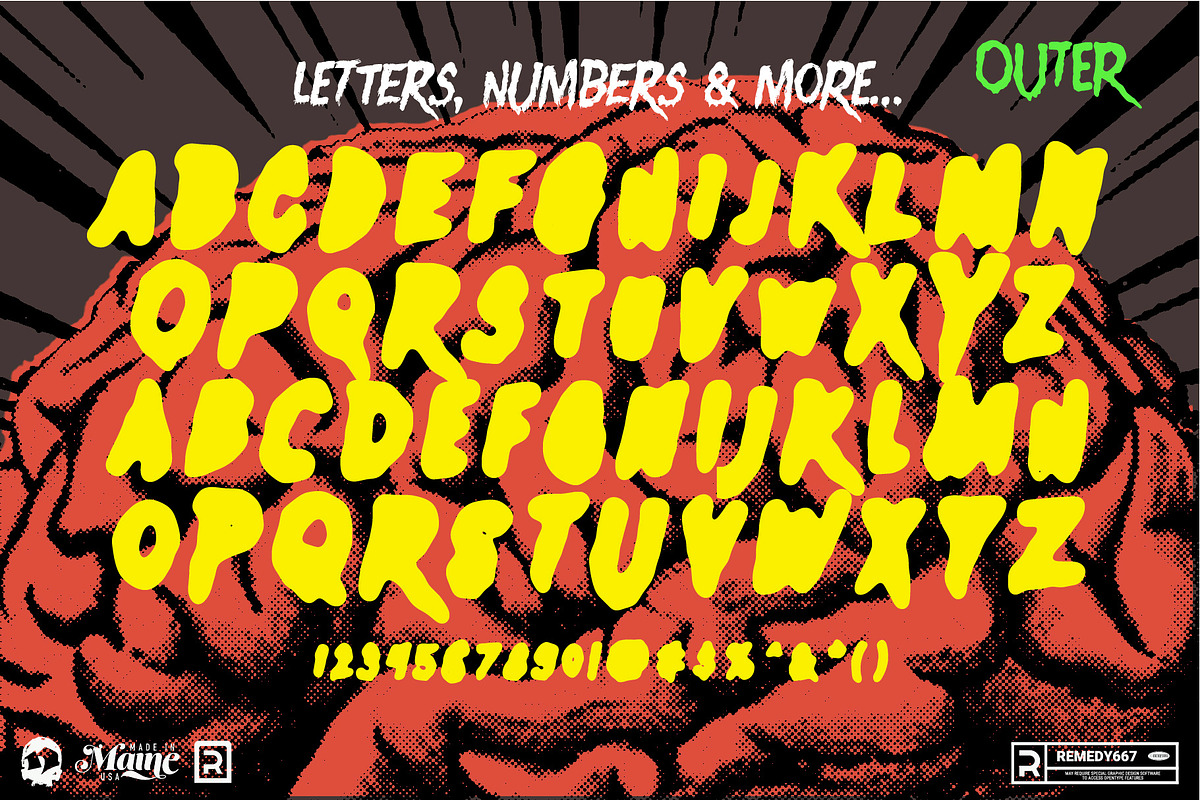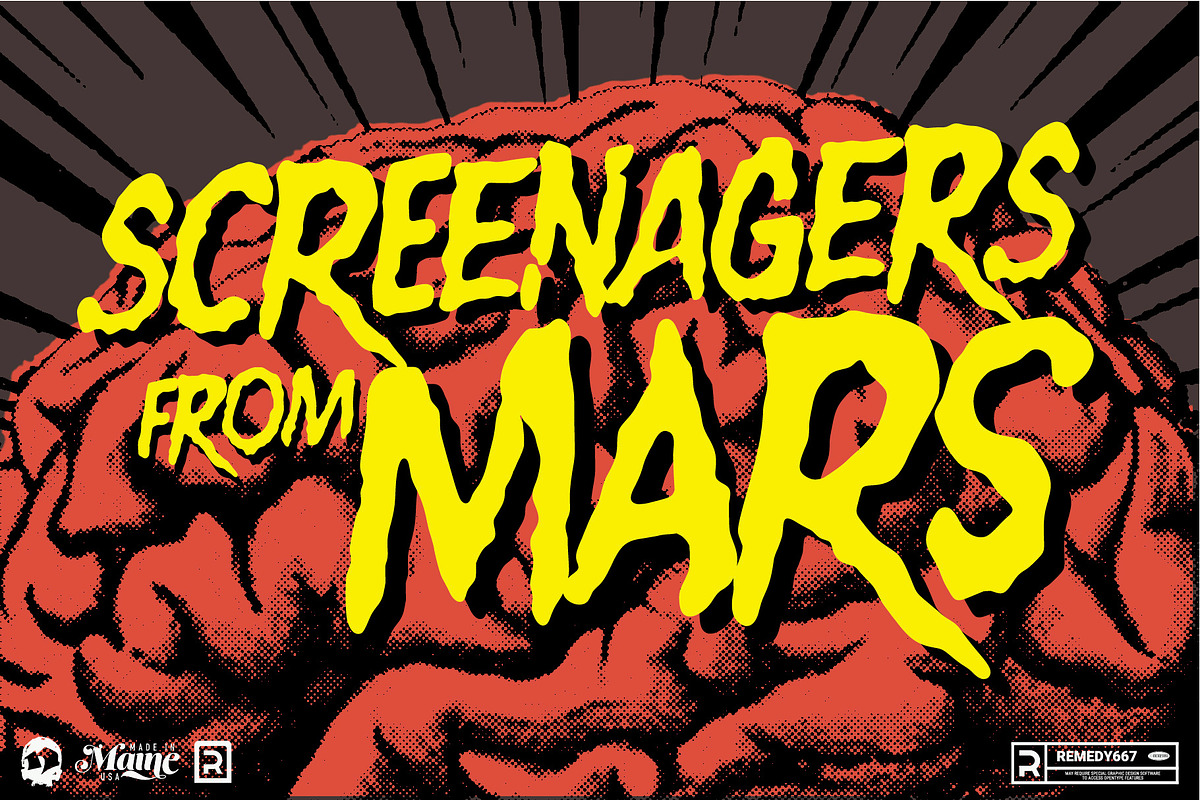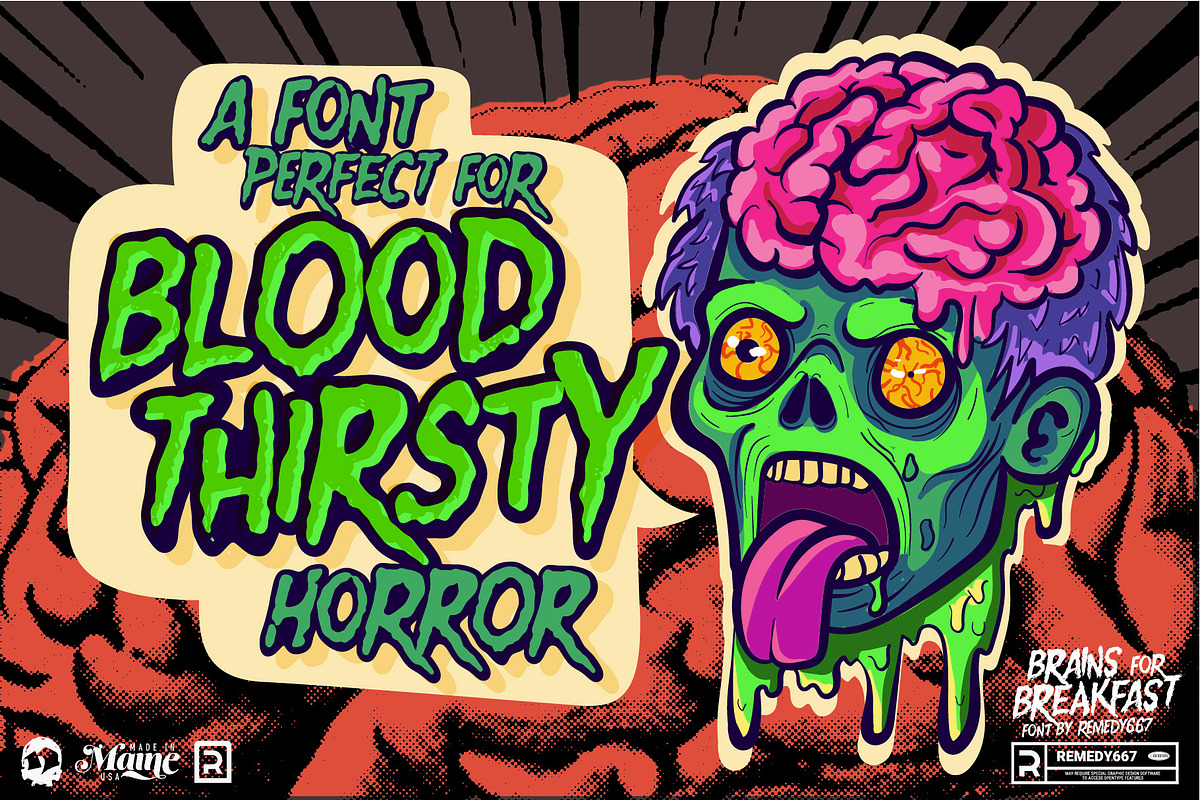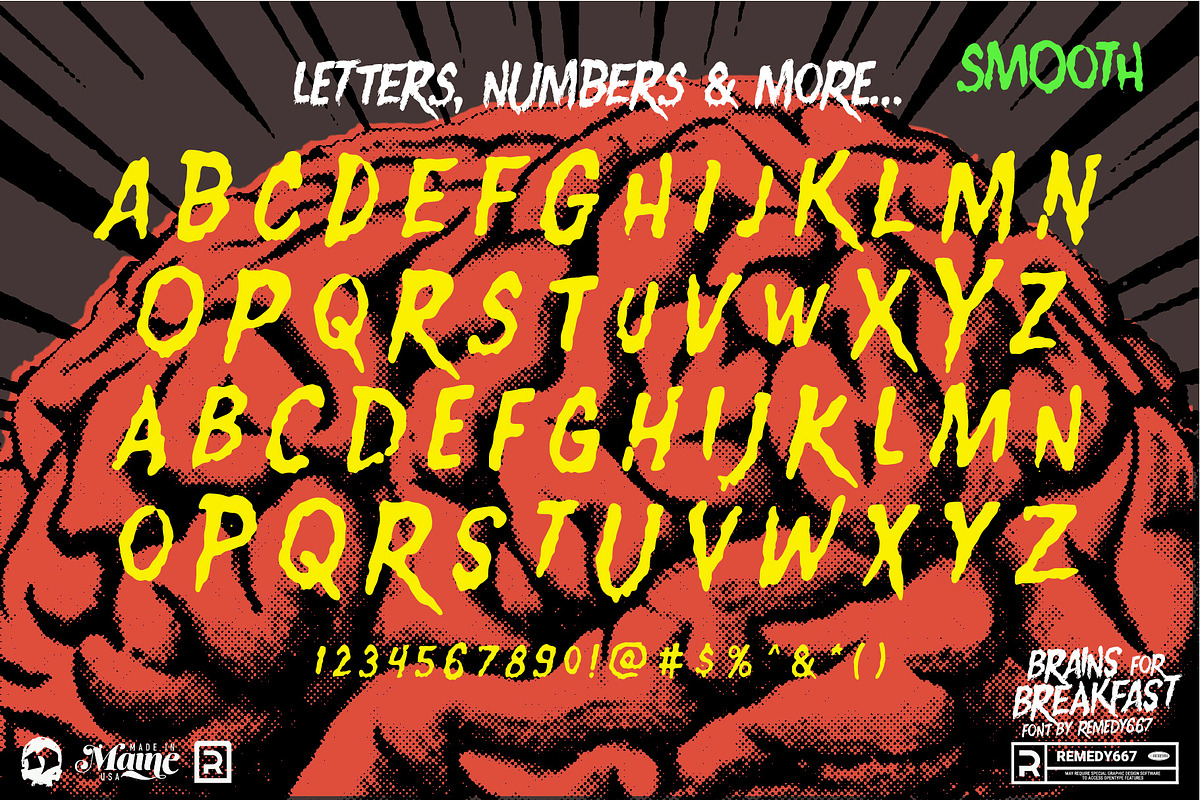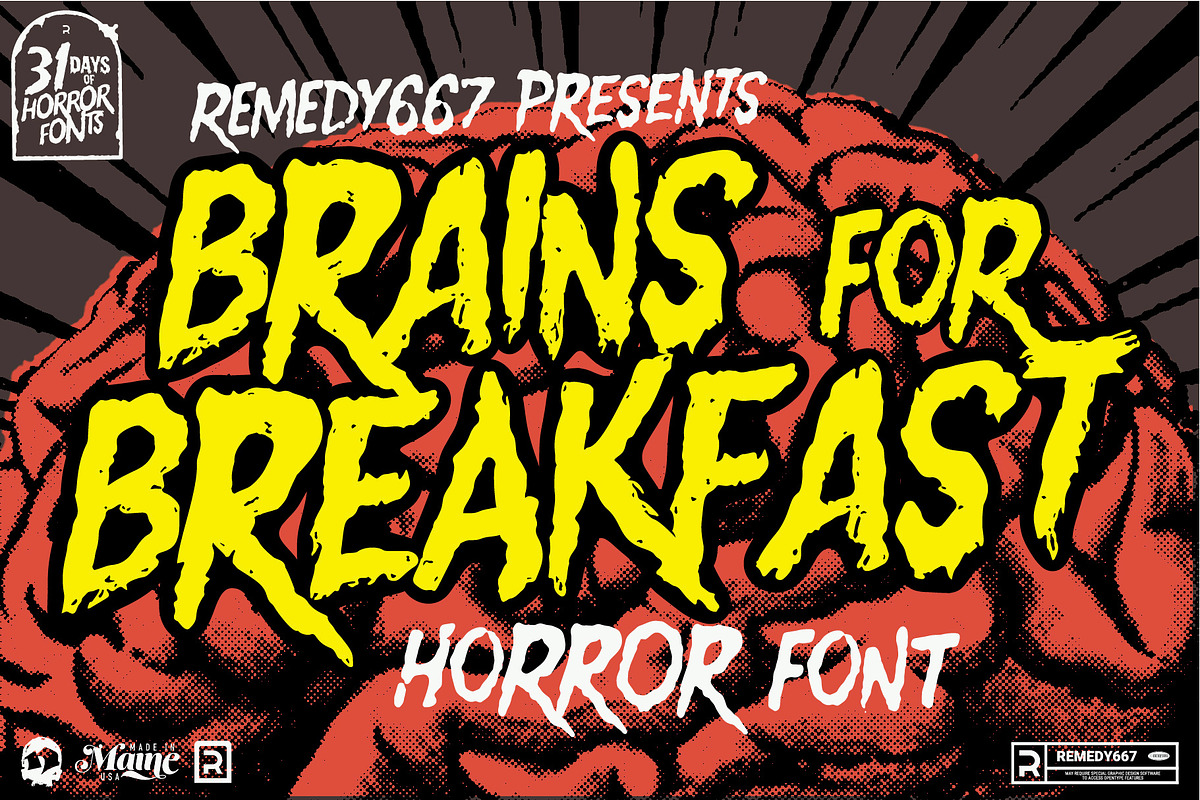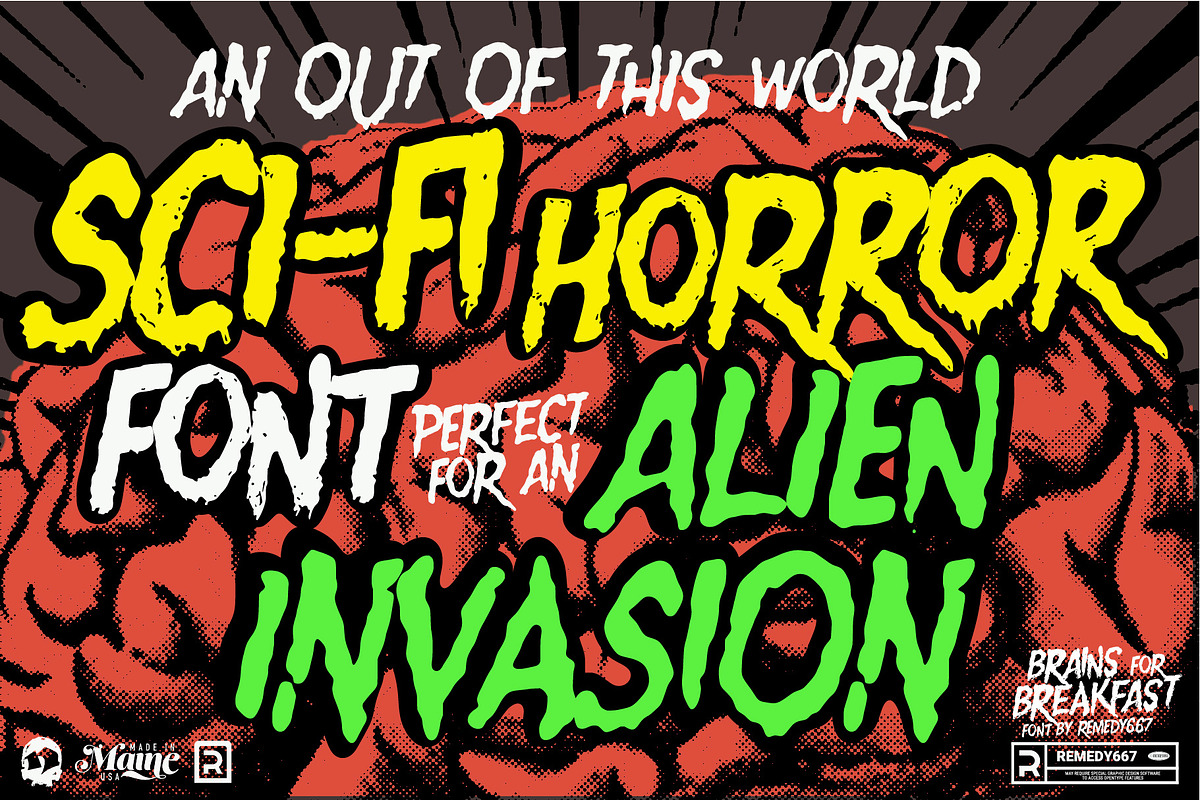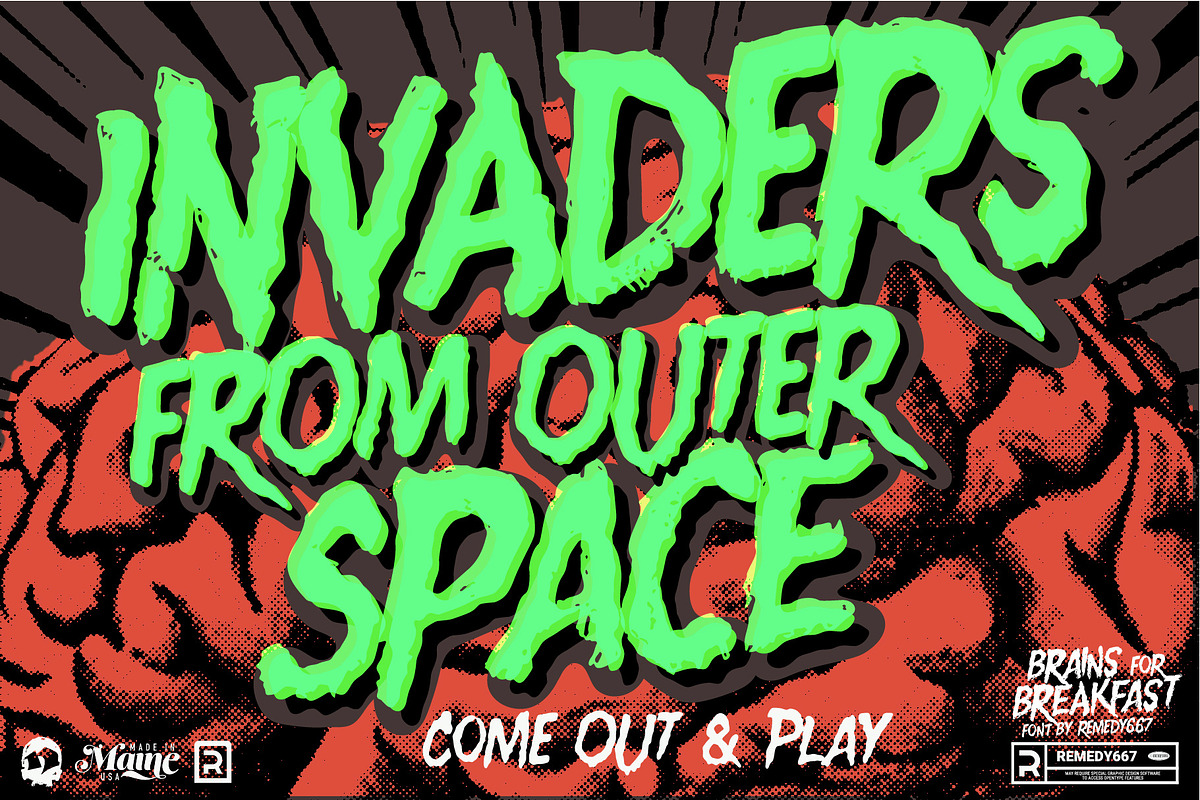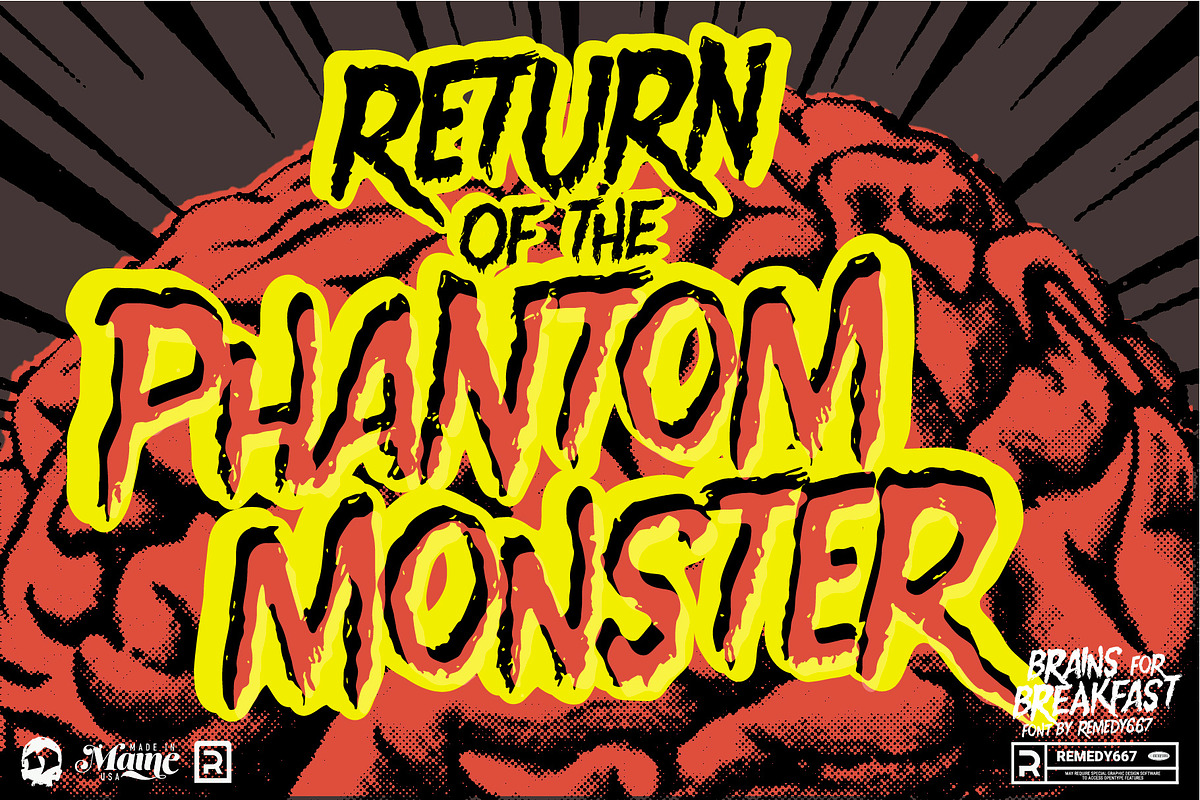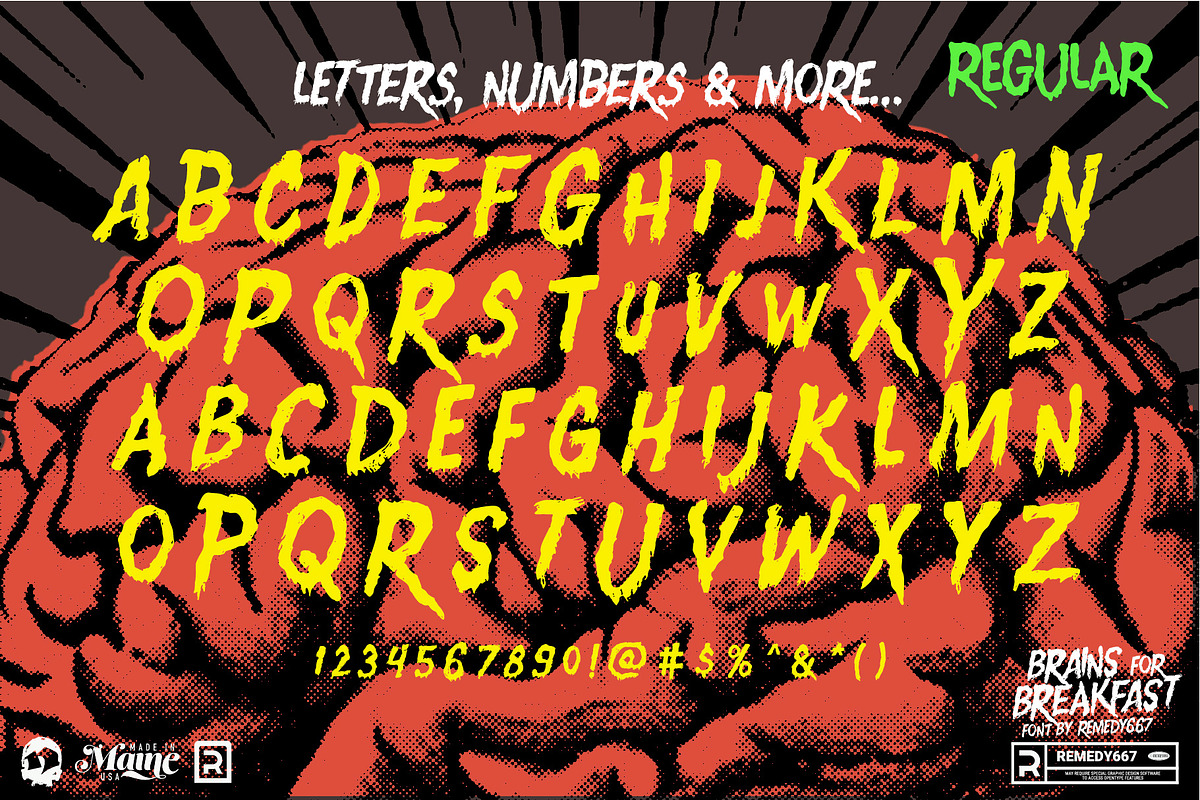
Brains for Breakfast - Sci-Fi Font
Goooood morning, ghouls and boils! Feast your hollow eyes upon Brains for Breakfast—a snarling slab of undead punk attitude, ripped fresh from the spray-painted walls of dive clubs and the grimy frames of modern zombie cinema! This typeface shambles, slashes, and sneers its way across your designs with just the right mix of rot and rebellion.
Whether you’re summoning the chaotic energy of punk rock flyers or the grisly grime of the living dead, Brains for Breakfast delivers a rancid, ragged unease that refuses to stay buried. It’s loud. It’s messy. It’s hungry. And it’s risen from the grave courtesy of the fiends at Remedy667.
Ragged, punk-inspired forms perfect for chaotic horror energy
Rotten, uneasy texture ideal for zombie-themed designs
Bold display shapes for posters, titles, and undead promotions
Versatile for modern horror, splatterpunk, and grimy street-style projects